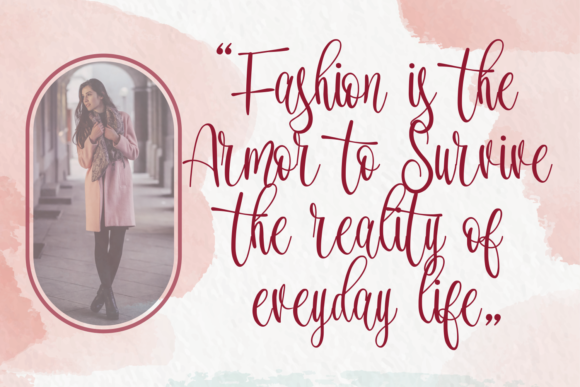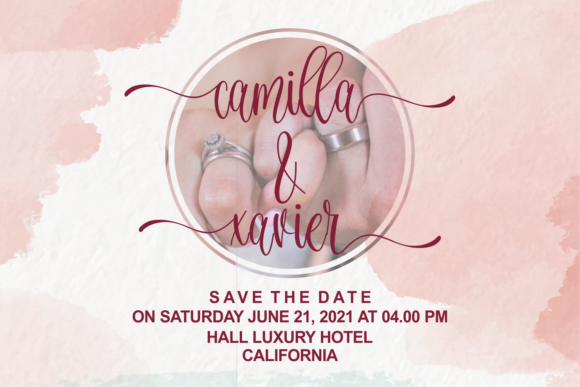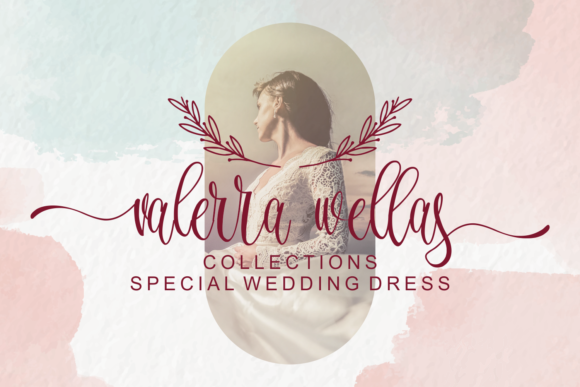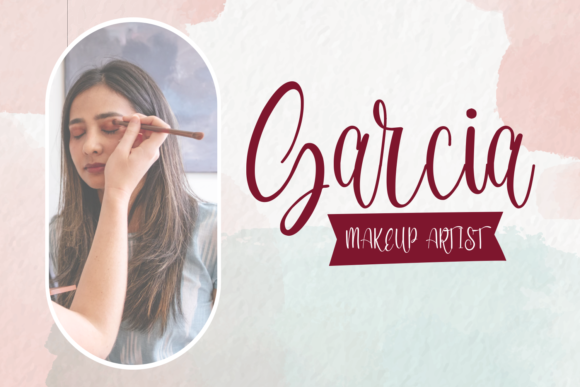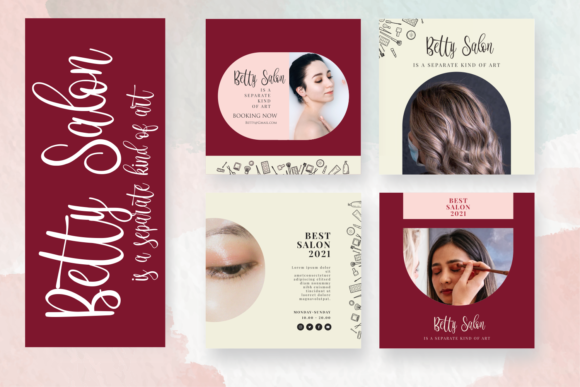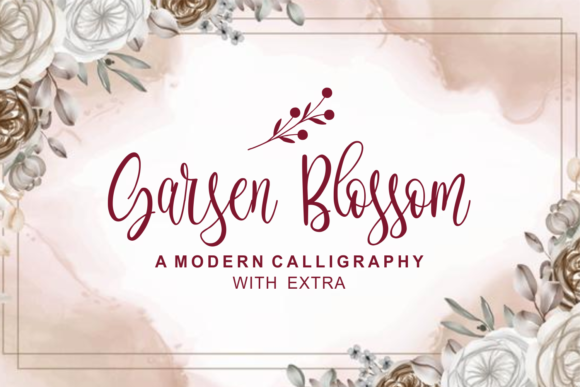
Garsen Blossom Font: A Charming Script Font for Your Creative Projects
Are you looking for a font that can add a touch of elegance and playfulness to your designs? Look no further than the Garsen Blossom font! This lovely script font features charming, playful characters that seem to dance along the baseline, making it perfect for a variety of creative projects. In this article, we’ll take a closer look at the Garsen Blossom font, its features, and how you can use it to elevate your designs.
What is Garsen Blossom Font?
Garsen Blossom is a beautiful script font that is designed to add a touch of whimsy and charm to your designs. The font features flowing, connected characters that seem to move along the baseline, creating a sense of movement and energy. The characters are playful and elegant, making it perfect for a variety of design projects, from wedding invitations and greeting cards to branding and packaging.
Key Features of Garsen Blossom Font
So, what makes the Garsen Blossom font so special? Here are some of its key features:
- PUA Encoding: The Garsen Blossom font is PUA (Private Use Area) encoded, which means that you can access all glyphs and swashes with ease. This makes it easy to use the font’s many features, including ligatures, ornaments, and swashes.
- Charming, Playful Characters: The font features charming, playful characters that seem to dance along the baseline. The characters are designed to be elegant and whimsical, making it perfect for a variety of design projects.
- Script Font: The Garsen Blossom font is a script font, which means that it features flowing, connected characters. This makes it perfect for creating elegant, sophisticated designs.
How to Use Garsen Blossom Font
So, how can you use the Garsen Blossom font in your designs? Here are a few ideas:
- Wedding Invitations: The Garsen Blossom font is perfect for wedding invitations, thanks to its elegant, whimsical characters. You can use it to create beautiful, one-of-a-kind invitations that will set the tone for the big day.
- Greeting Cards: The font is also great for greeting cards, including birthday cards, holiday cards, and more. You can use it to create cards that are both elegant and playful.
- Branding and Packaging: The Garsen Blossom font can also be used for branding and packaging. Its elegant, sophisticated characters make it perfect for creating logos, labels, and other marketing materials.
Tips for Using Garsen Blossom Font
Here are a few tips for using the Garsen Blossom font in your designs:
- Pair it with Other Fonts: The Garsen Blossom font can be paired with other fonts to create a unique, eye-catching design. Try pairing it with a bold, sans-serif font for a striking contrast.
- Experiment with Colors: The font looks great in a variety of colors, from soft pastels to bold brights. Experiment with different colors to find the one that works best for your design.
- Use it for Headlines and Titles: The Garsen Blossom font is perfect for headlines and titles, thanks to its elegant, sophisticated characters. Use it to create eye-catching headlines that will grab the reader’s attention.
In conclusion, the Garsen Blossom font is a beautiful script font that is perfect for a variety of creative projects. Its charming, playful characters and PUA encoding make it easy to use and versatile. Whether you’re designing wedding invitations, greeting cards, or branding materials, the Garsen Blossom font is a great choice. So why not give it a try and see how it can elevate your designs?
Overall, the Garsen Blossom font is a beautiful, versatile font that is perfect for designers and crafters. Its charming, playful characters and PUA encoding make it easy to use and versatile, and it’s a great choice for a variety of creative projects.